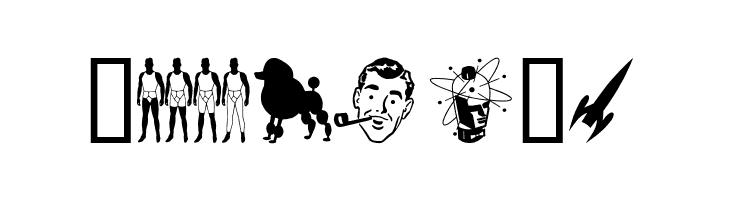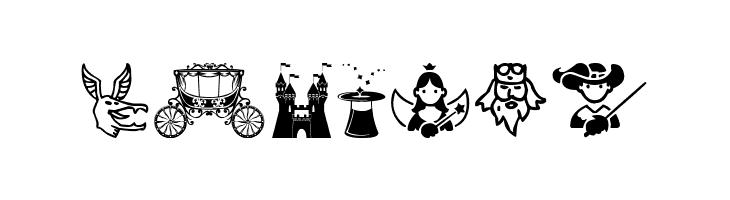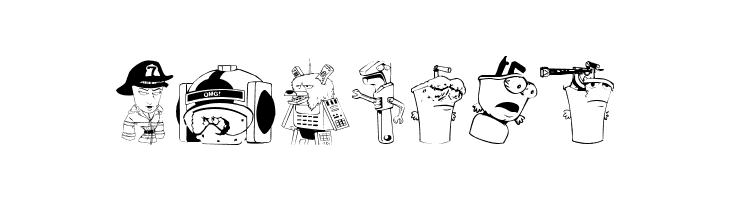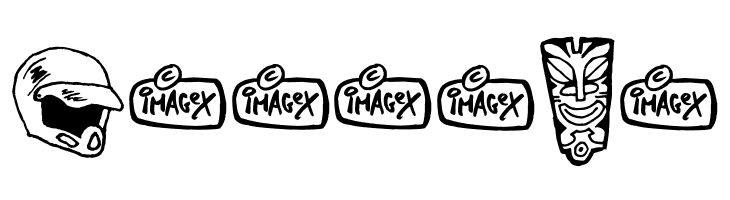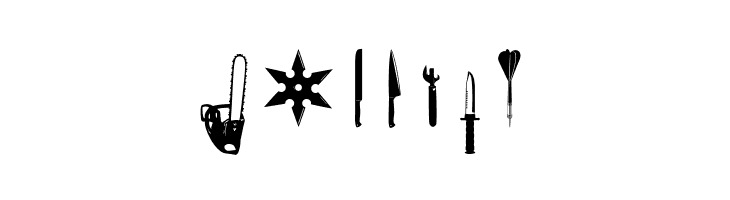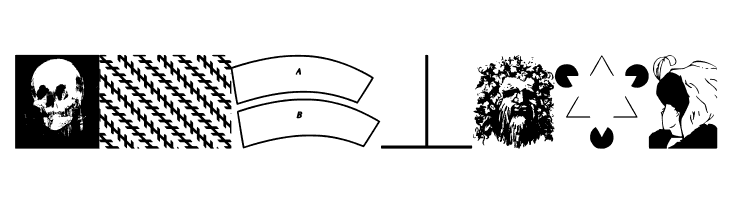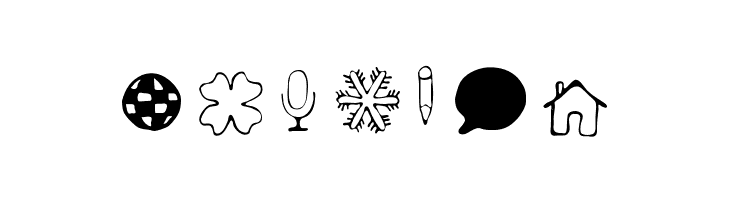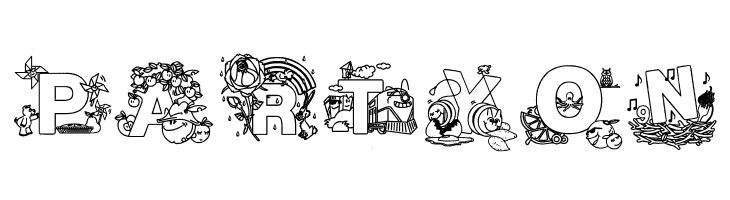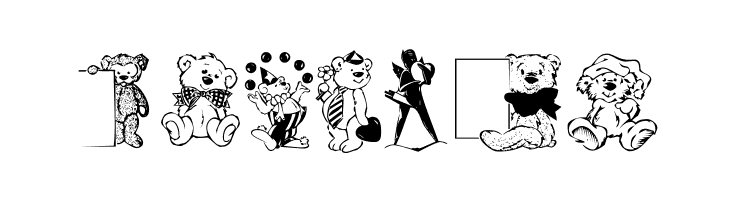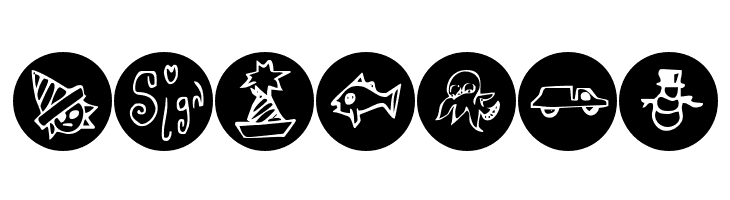
Retro-themed dingbat font with mid-century cartoon illustrations.
Decorative fairy tale icon font with playful, bold silhouettes.
Cartoon character dingbat font with unique illustrations for each glyph.
Hand-drawn dingbat font with playful, hobby-themed icons.
A display font made from weapon and tool silhouettes, bold and graphic.
A decorative font made from iconic optical illusion illustrations.
A playful, illustrative font featuring a variety of everyday symbols and hand-drawn numbers.
A playful, decorative font with whimsical illustrations on each letter.
A whimsical dingbat font with illustrated angels and bears.
A decorative font featuring playful, hand-drawn icons in circular enclosures.